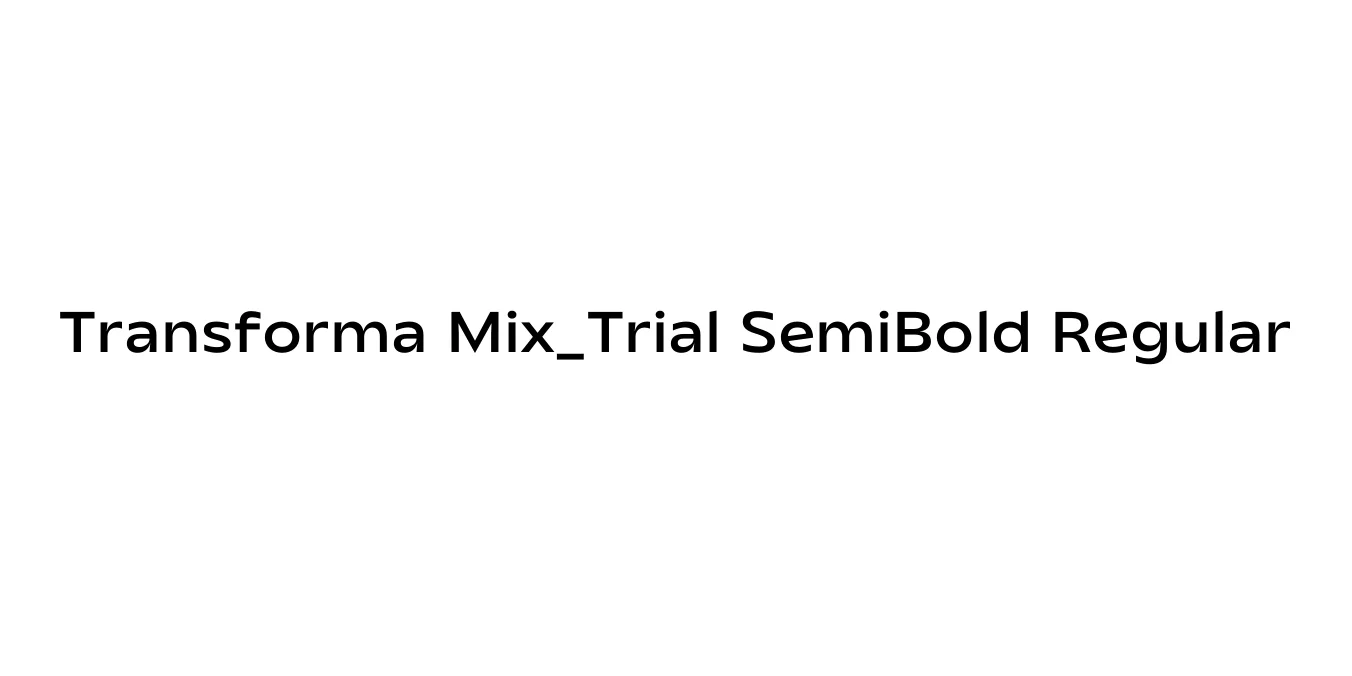
Transforma Mix_Trial SemiBold Regular
Designed by Francesco Canovaro, Cosimo Lorenzo Pancini, Andrea Tartarelli, and Maria Chiara Fantini
| Category | Sans Serif / Display |
| Designer | Francesco Canovaro, Cosimo Lorenzo Pancini, Andrea Tartarelli, and Maria Chiara Fantini |
Transforma Mix is a highly versatile and experimental font system designed by the renowned Zetafonts foundry. It was developed to bridge the gap between traditional sans serif structures and more expressive, script-like forms. The SemiBold Regular weight of the Mix variant provides a robust and confident presence, characterized by its unique rhythmic balance and modern geometric foundations that make it stand out in both digital and print environments.
The philosophy behind the Transforma project is rooted in the concept of typographic evolution. By mixing different stylistic sets and architectural influences, the designers have created a typeface that adapts seamlessly to diverse creative needs. This trial version offers a glimpse into the family's potential, making it an excellent choice for designers looking to push the boundaries of contemporary branding and editorial layouts without sacrificing legibility.
Excellent for creating distinctive logos and brand identities with a modern, technical feel.
Perfect for high-impact headlines, pull quotes, and magazine cover designs.
Suitable for bold UI elements, navigation menus, and call-to-action buttons.
Great for promotional posters and social media graphics that require a unique typographic voice.